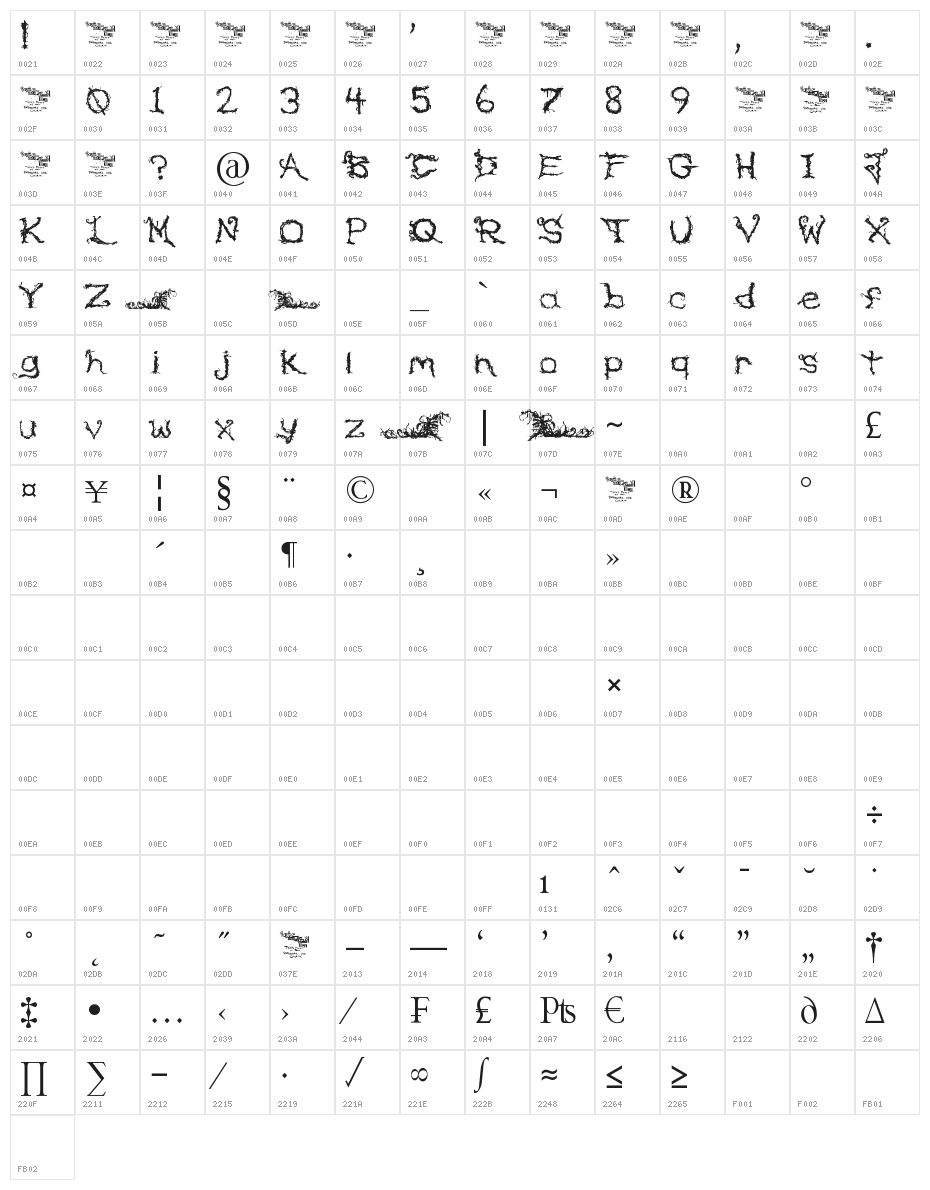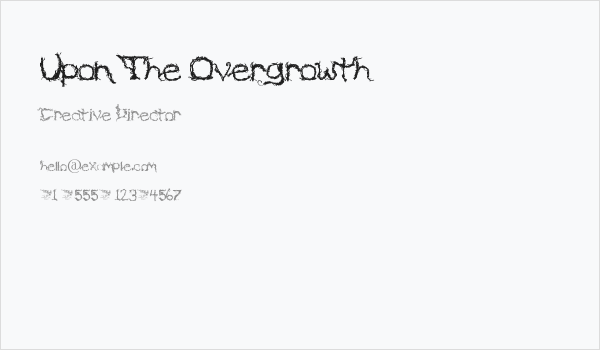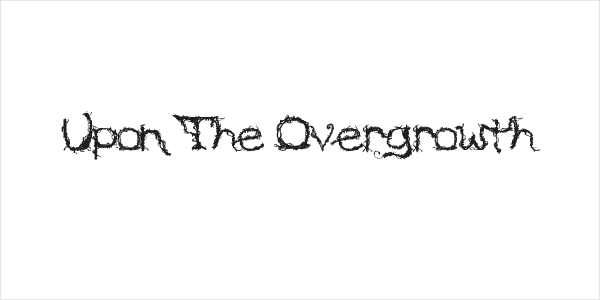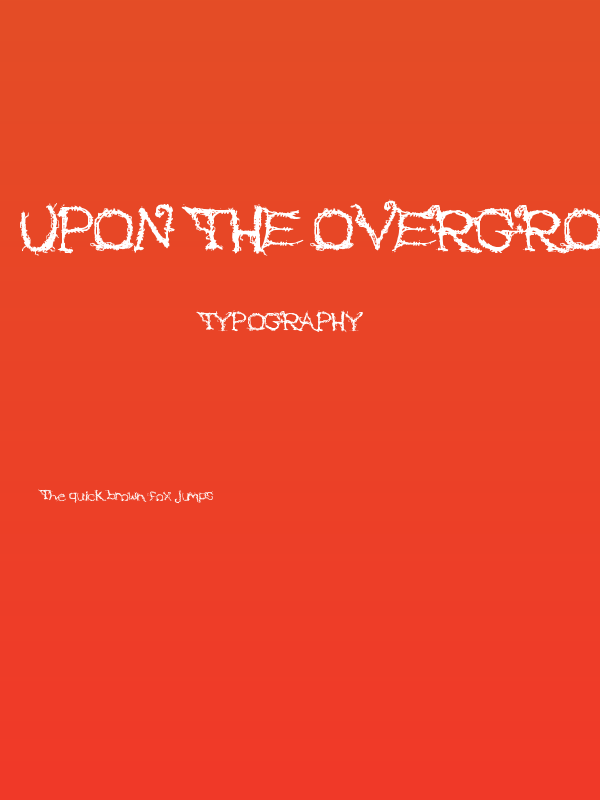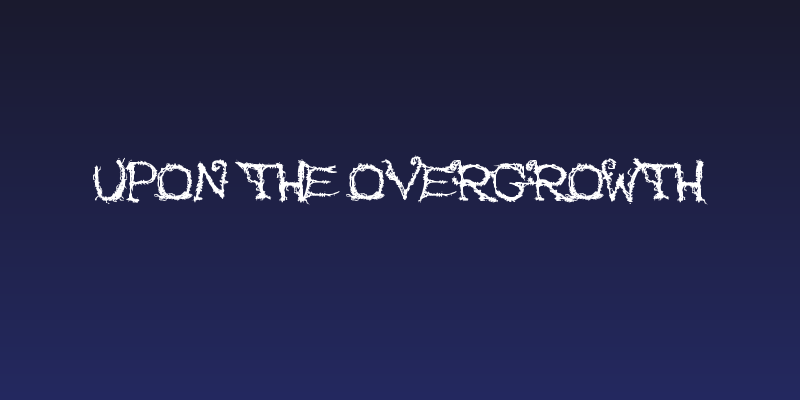
Upon The Overgrowth Font
Upon The Overgrowth Description
This font features a unique, organic design that resembles tangled vines or overgrown foliage. Each character is intricately detailed with thorn-like extensions, creating a wild and untamed appearance. The uppercase and lowercase letters maintain a consistent style, with the uppercase being slightly more pronounced. Numbers and special characters follow the same theme, ensuring a cohesive look across all elements. The font's intricate design makes it stand out, ideal for projects that require a natural or gothic aesthetic.
| Proposed Projects | Ideal for fantasy book covers, horror movie posters, themed event invitations, or any project needing a natural or gothic touch. |